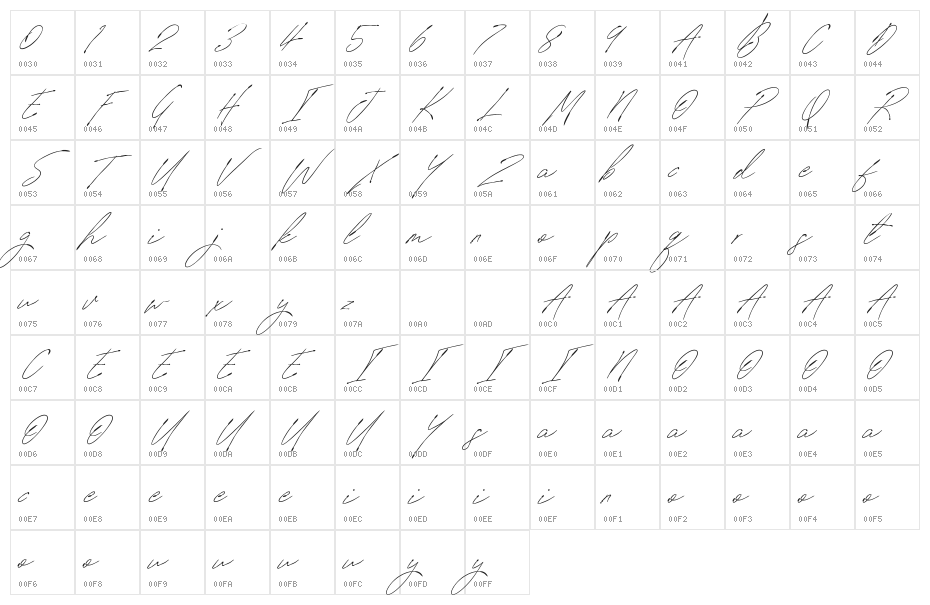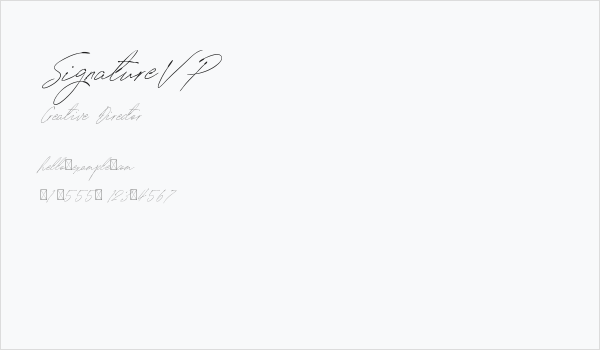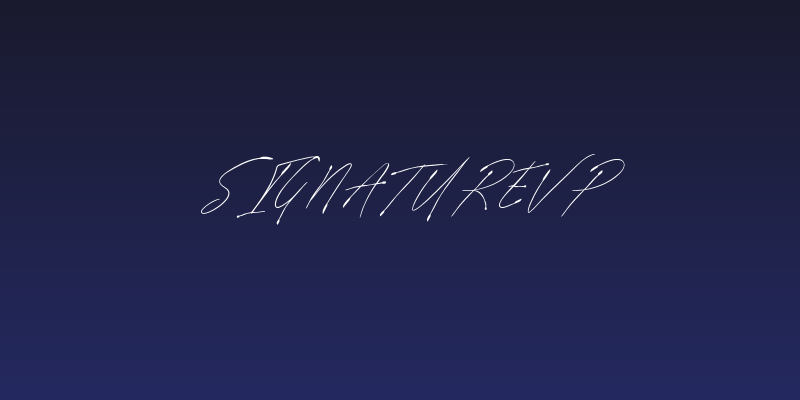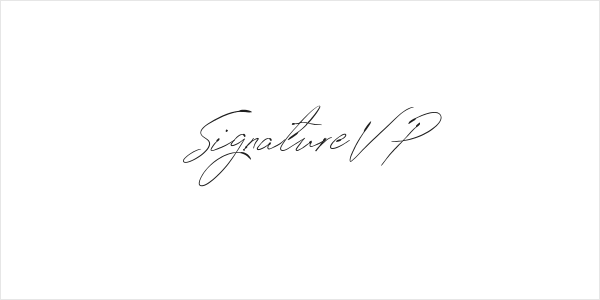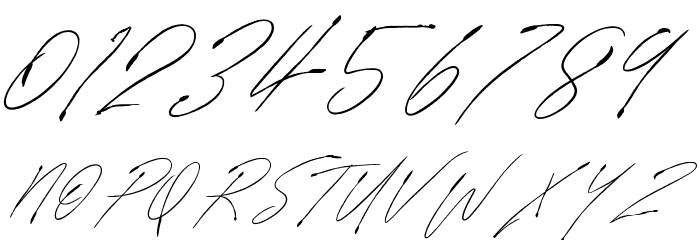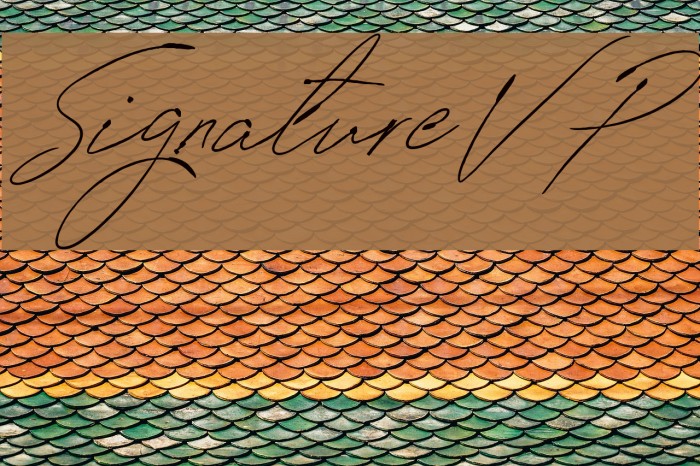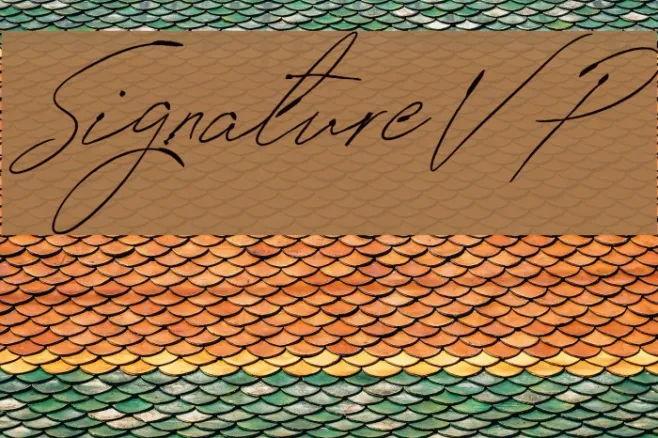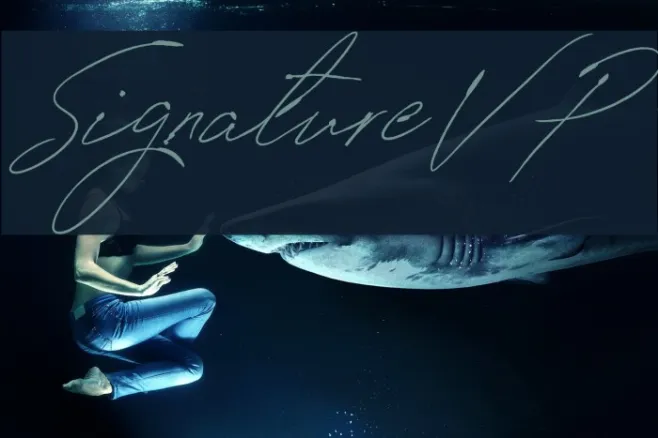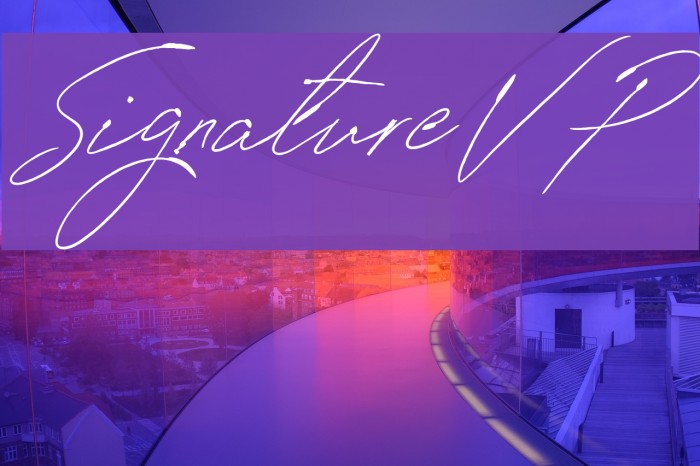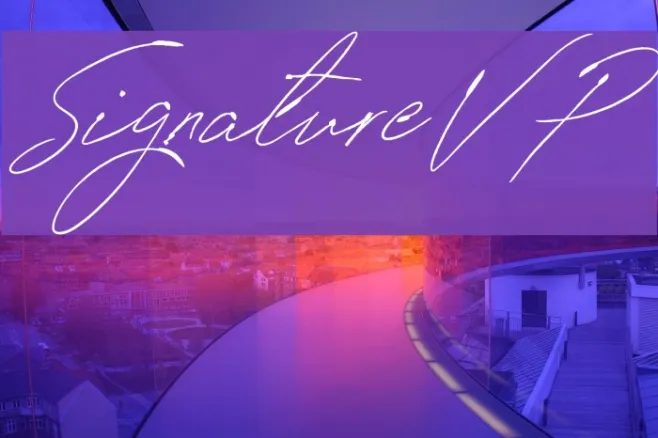
SignatureVP Font
SignatureVP Description
This font exudes a sophisticated and elegant handwritten style, reminiscent of a personal signature. The letters are fluid and connected, with a natural flow that mimics cursive handwriting. The uppercase letters are tall and slender, while the lowercase letters maintain a consistent slant, enhancing the font's graceful appearance. The numerals are distinct yet harmonize well with the alphabetic characters. The overall aesthetic is refined and stylish, making it suitable for projects that require a personal touch or a sense of luxury.
| Overall Style | Elegant, Sophisticated |
| Proposed Projects | Ideal for wedding invitations, personal branding, luxury product packaging, and elegant stationery. |